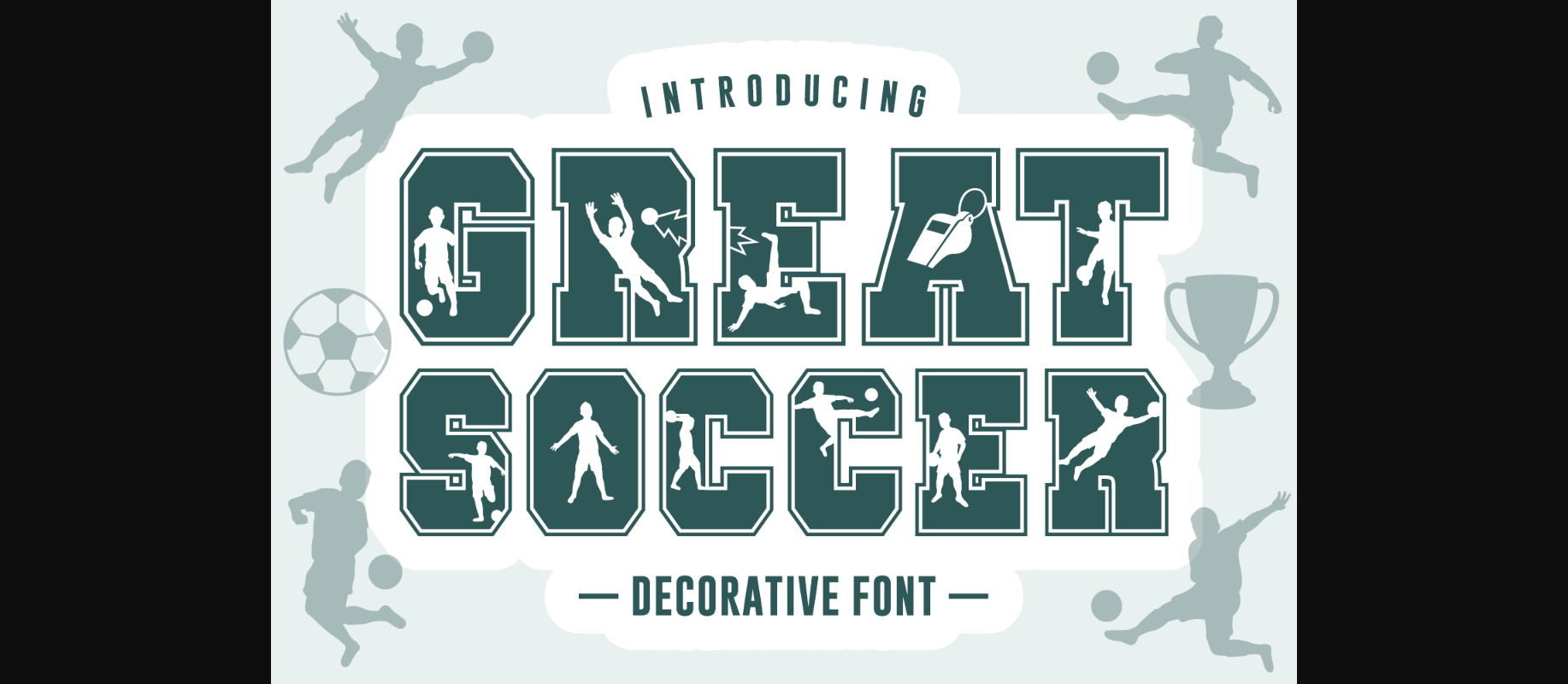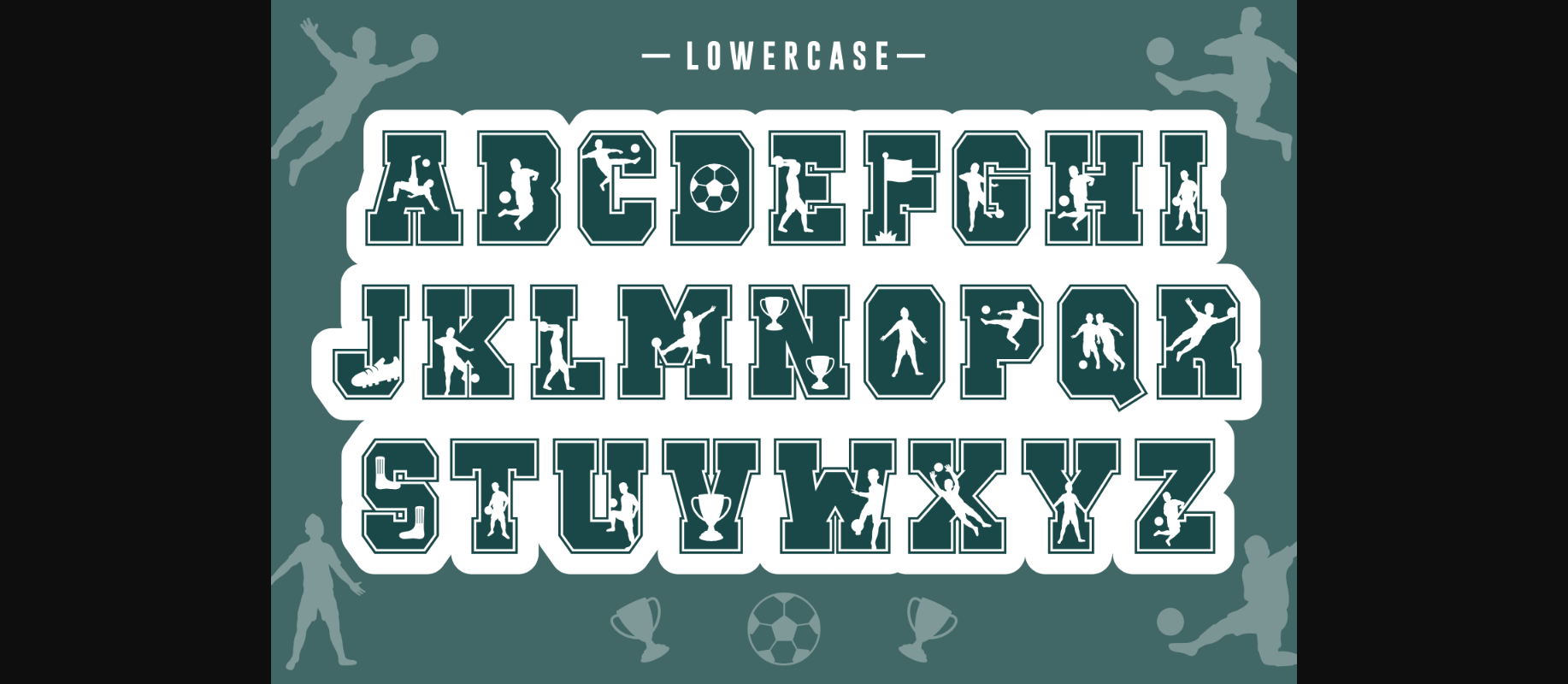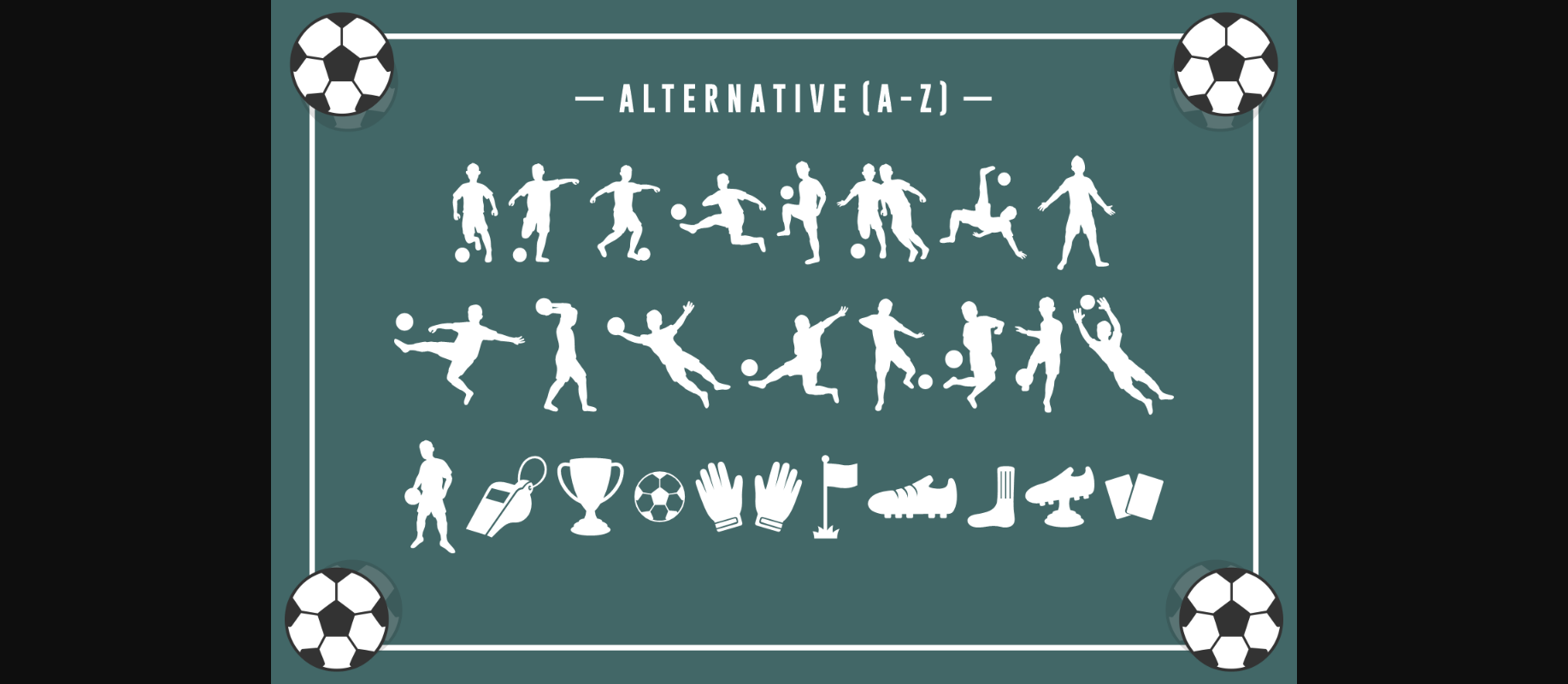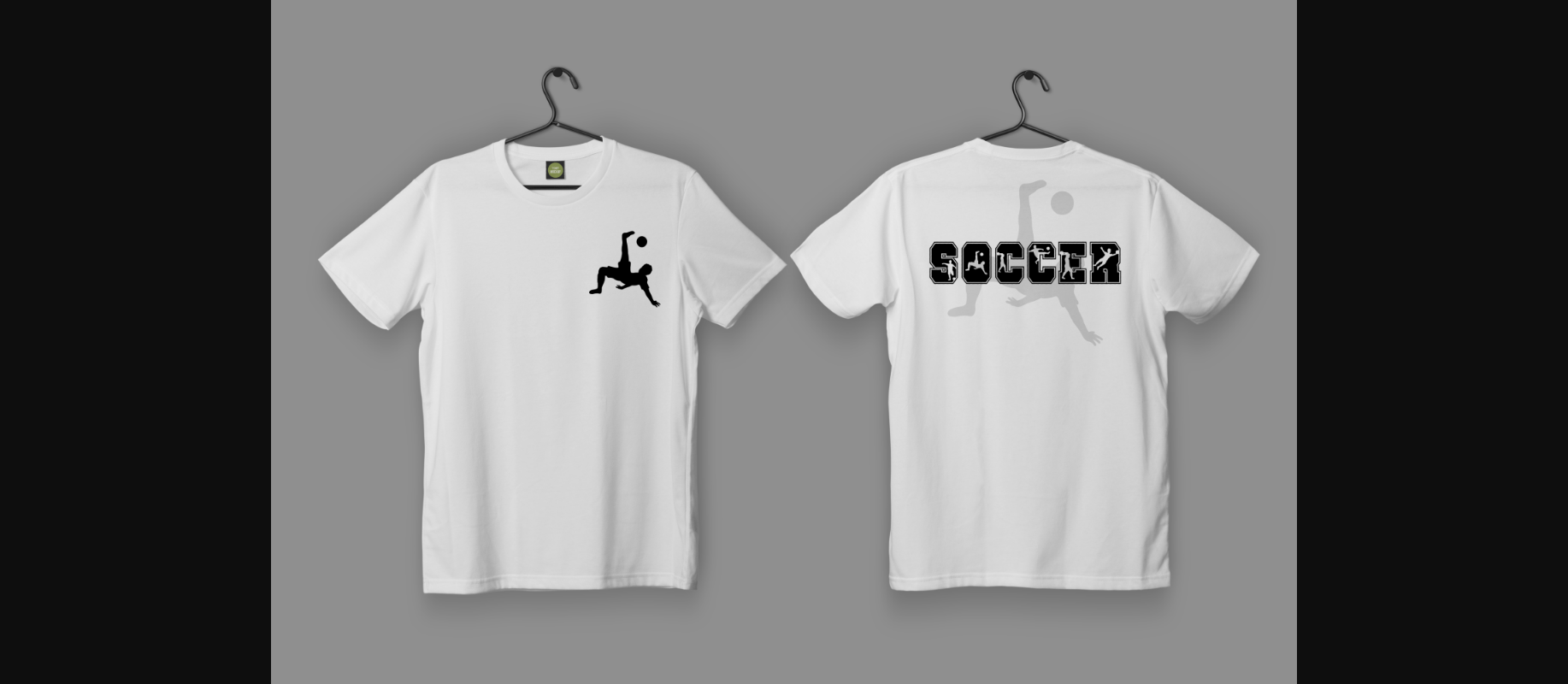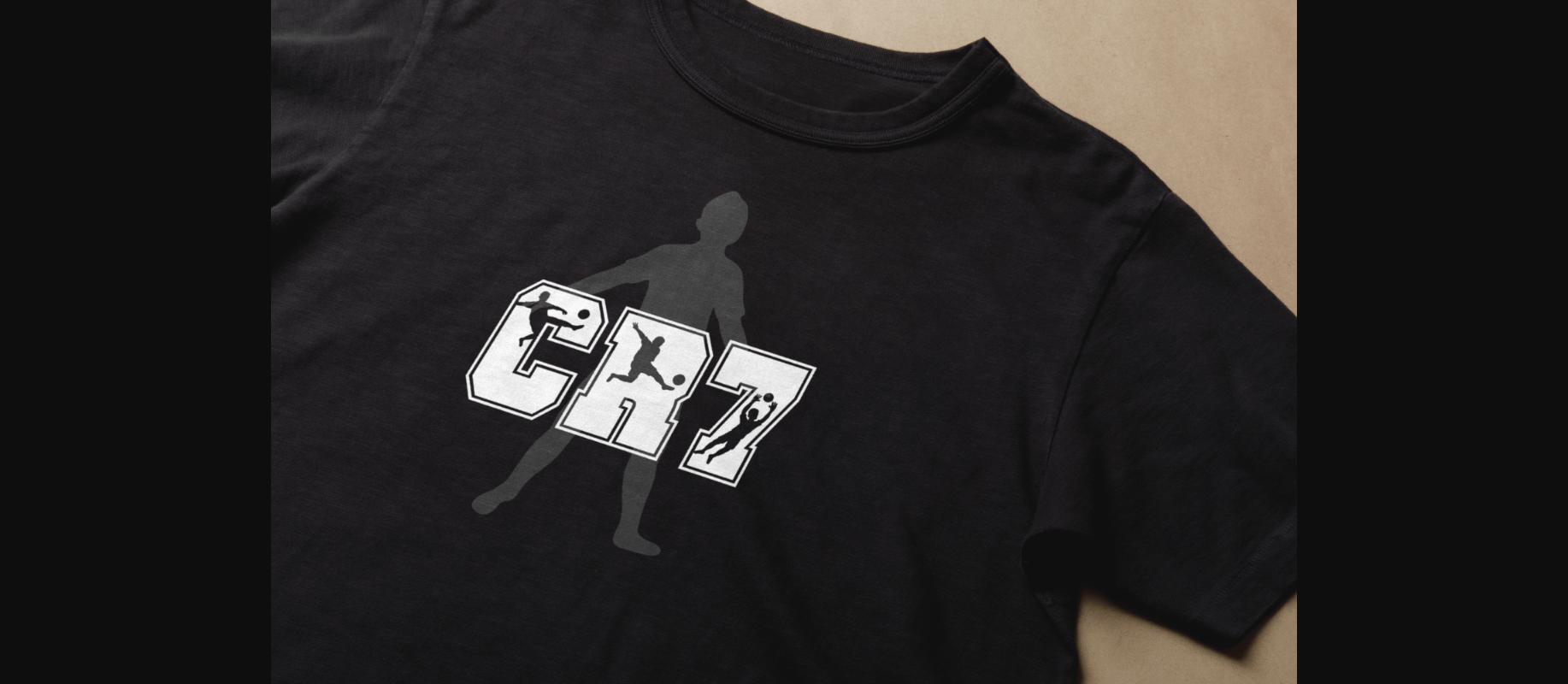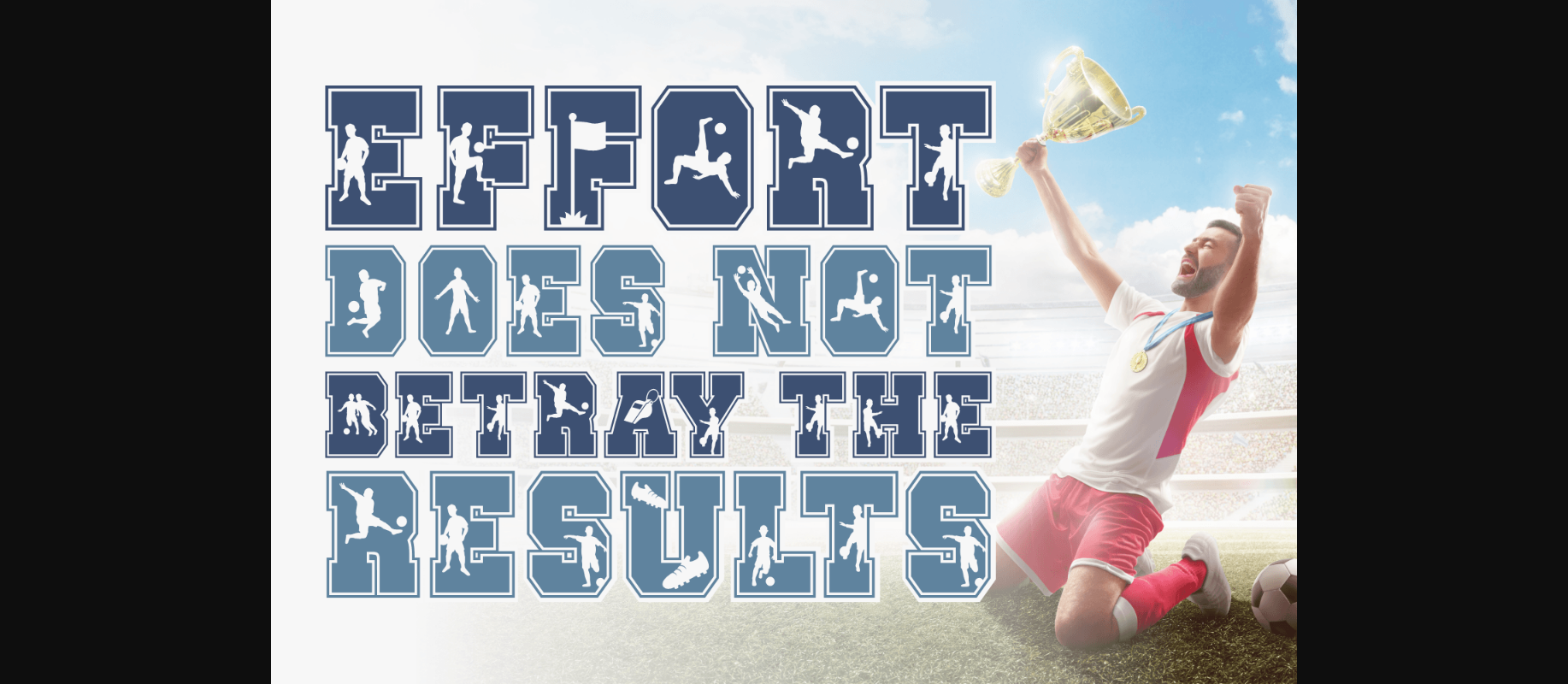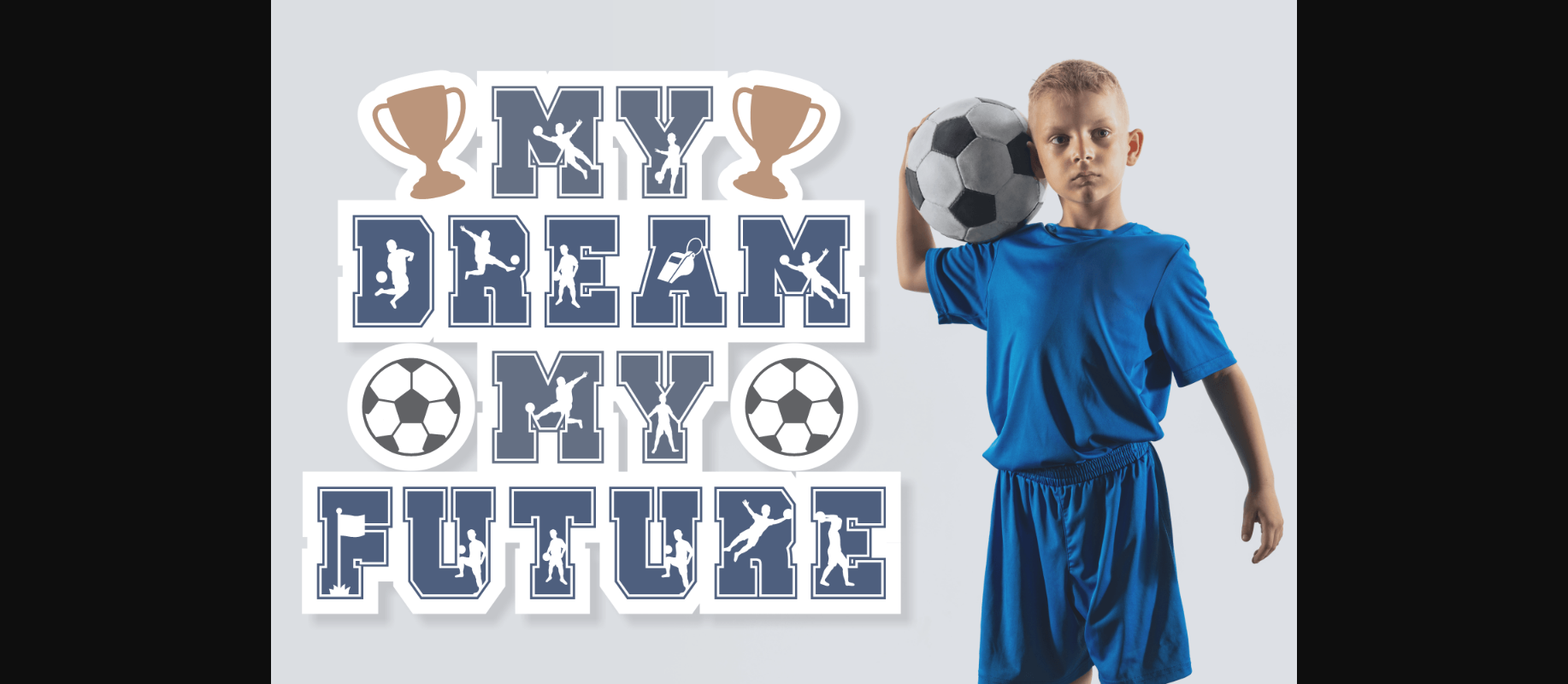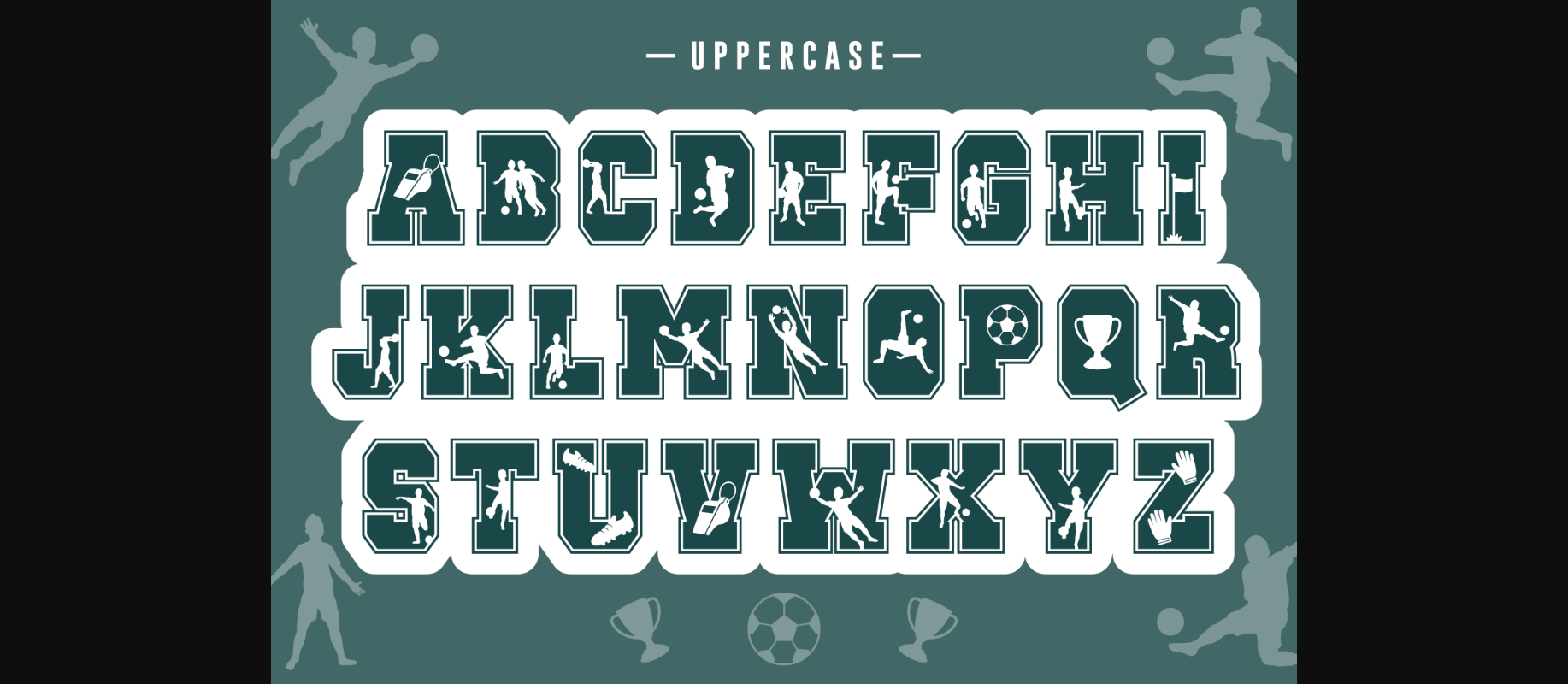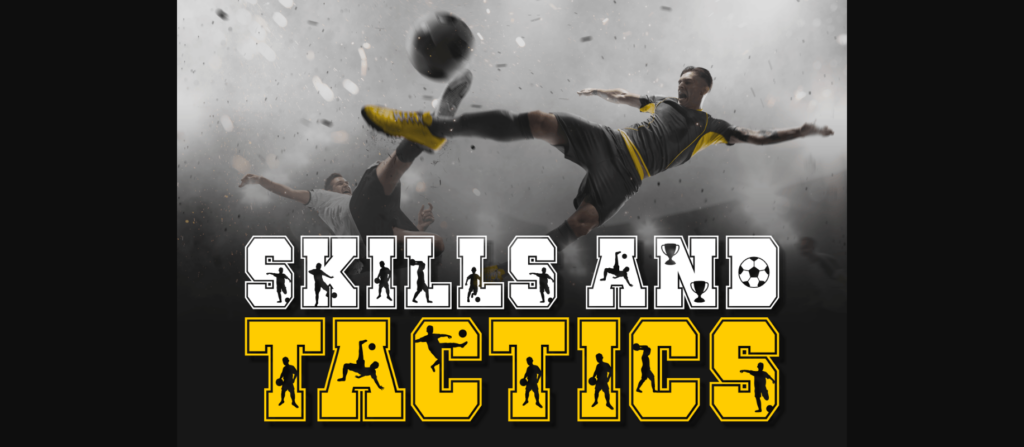
Great Soccer Font
About Great Soccer Font
Great Soccer is a modern font created especially for logos and stand-out typography.
Crafted for bold action and sports, this font is ideal for any project that will be soccer themed!